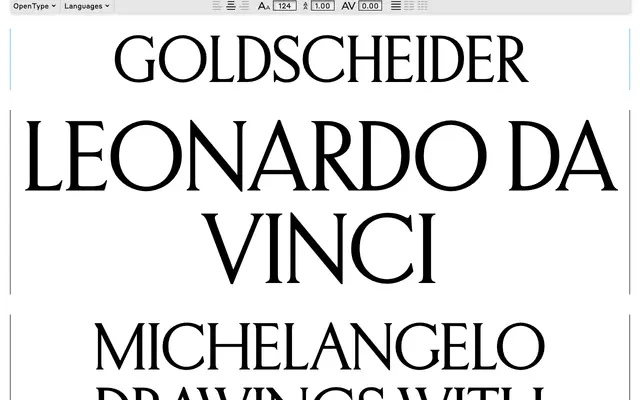
Goldscheider
Commercial Type · Christian Schwartz · 2020
Goldscheider specimen from Commercial Type
An elegant set of titling caps by Christian Schwartz, drawn from Ludwig Goldscheider's Phaidon lettering and first used as the masthead of Document Journal.
A set of titling caps by Christian Schwartz, drawn loosely from the elegant lettering Ludwig Goldscheider used in the lush but affordable monographs he wrote, edited, designed and published as co-founder of Phaidon in the early twentieth century. Books on Da Vinci, El Greco, Michelangelo and Holbein supplied the main inspiration. Schwartz first drew the face for Nick Vogelson in 2020 as the nameplate for Document Journal, then completed it as a full titling set used by the magazine until it folded in 2026. Suits art-book covers, fashion mastheads and luxury identities wanting period elegance without revival cliche.
Commercial Type frame Goldscheider as a titling face drawn loosely from the elegant lettering Ludwig Goldscheider used in early twentieth-century Phaidon monographs.